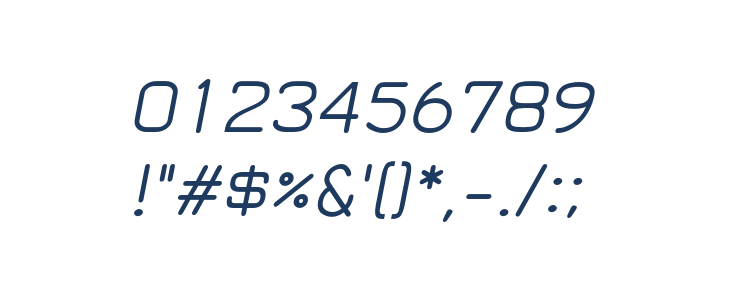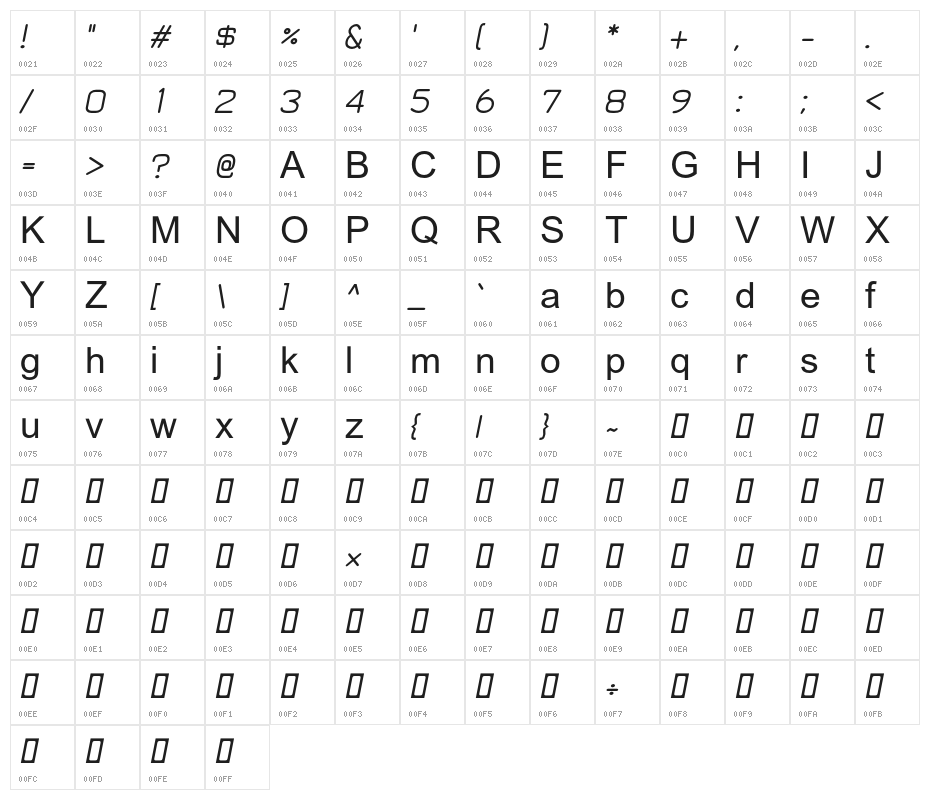
Nortar-Italic Font
Nortar-Italic Description
This font features a clean and modern sans-serif style with a slight italic slant, giving it a dynamic and forward-moving appearance. The characters are well-proportioned with consistent stroke widths, providing a harmonious and balanced look. The uppercase and lowercase letters maintain a uniform height, enhancing readability. The numerals are clear and distinct, making them suitable for various applications. Special characters are well-integrated, ensuring versatility in design projects. The overall design is sleek and professional, making it ideal for contemporary uses.
| Proposed Projects | Ideal for branding, advertising, web design, and editorial projects where a modern and dynamic look is desired. |